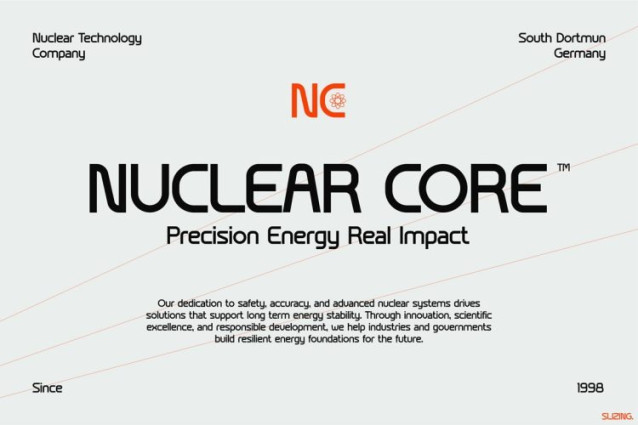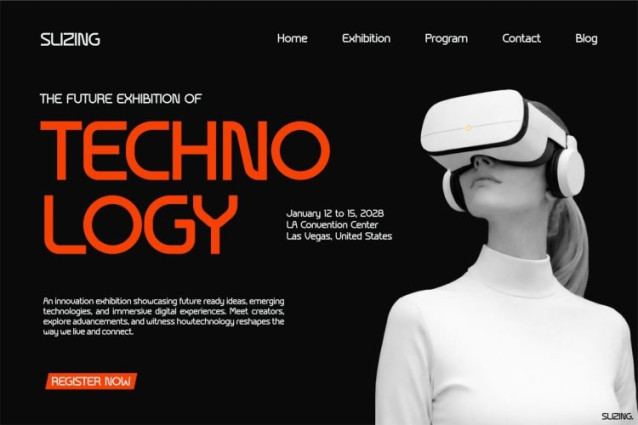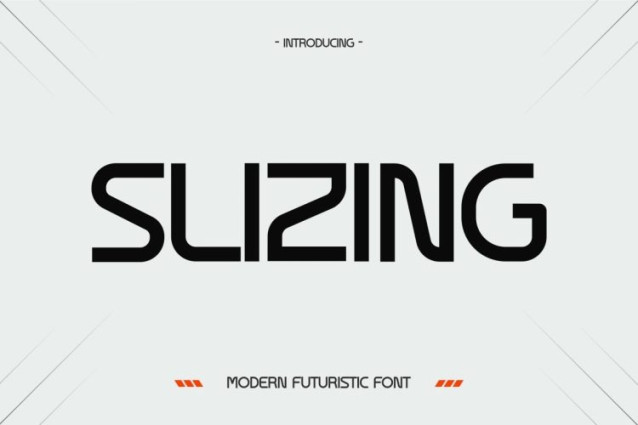
Slizing Font
Slizing Font introduces a bold, high-tech voice designed for innovation-driven visuals. From the opening glance, this font feels sharp, precise, and forward-looking. Its angular cuts, geometric structure, and clean futuristic rhythm create a strong sense of motion and progress. Moreover, SLIZING blends minimalism with aggressive clarity, which makes every headline feel powerful and intentional. Because of its modern sci-fi aesthetic, the font instantly communicates technology, intelligence, and future readiness. As a result, your designs gain a cutting-edge presence that feels confident and advanced.
At the same time, Futuristic Font SLIZING is built for performance. The letterforms remain highly readable even at small sizes. Additionally, the spacing and proportions support both digital and print layouts. Whether used on tech websites, UI screens, posters, or exhibitions, SLIZING stays crisp and impactful. Therefore, it becomes a reliable tool for designers who need clarity without sacrificing style. Every character feels engineered, purposeful, and ready for tomorrow.
Futuristic Font SLIZING is a modern display typeface created for technology-focused branding and visionary design. First, its sharp edges and clean lines reflect precision and innovation. Then, its futuristic construction adds a strong sci-fi tone without becoming overwhelming. Furthermore, SLIZING pairs perfectly with dark themes, neon accents, and minimal layouts. Because of this, it excels in projects related to robotics, AI, engineering, gaming, and digital products. In addition, the font supports strong hierarchy, making it ideal for headlines, titles, posters, and interfaces. Ultimately, SLIZING helps designers express speed, intelligence, and modern authority through typography.